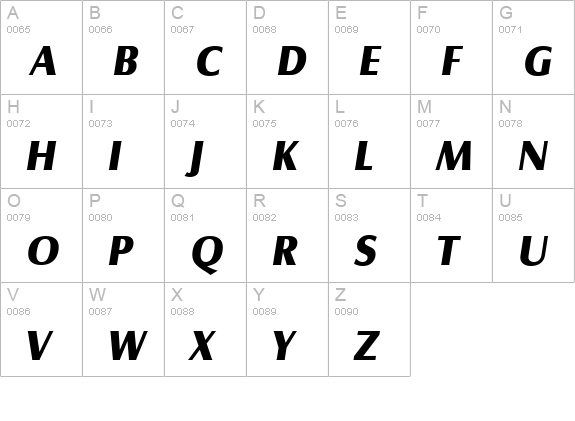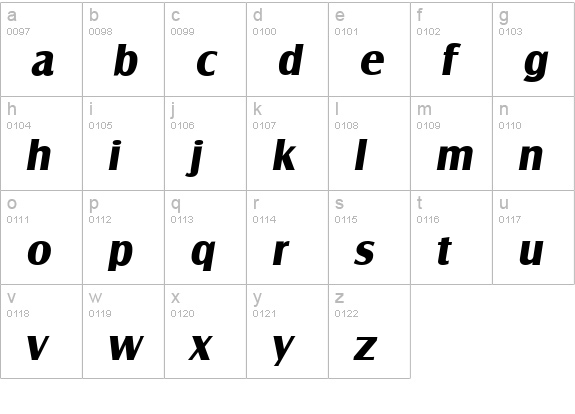
SalzburgSerial-Xbold-Italic is a distinctive, italic variant in the SalzburgSerial typeface family \xE2\x80\x94 well suited to design and typography projects.
SalzburgSerial-Xbold-Italic is a bold and dynamic font that exudes elegance and sophistication. Its strong, italicized strokes add a touch of flair and creativity to any design project. This font is perfect for creating eye-catching headlines, titles, and branding materials. The best part about SalzburgSerial-Xbold-Italic is that it is available for free download at FontsMarket.com. This means you can easily incorporate this stunning font into your projects without any cost. Whether you're designing a website, creating marketing materials, or crafting a logo, SalzburgSerial-Xbold-Italic is sure to make a bold statement and leave a lasting impression. Download this font today and elevate your designs to the next level!